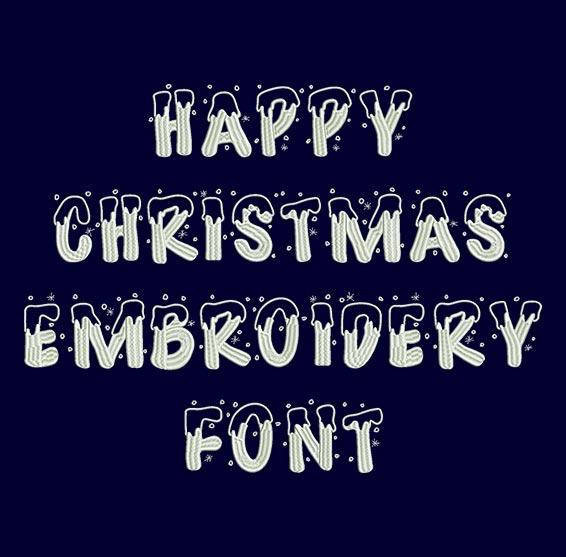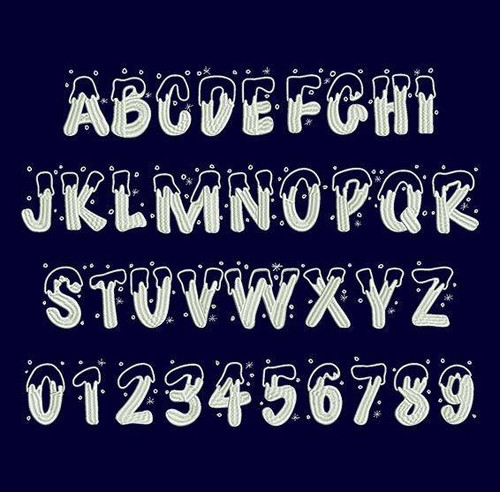
HAPPY CHRISTMAS MACHINE EMBROIDERY FONT
Title: Happy Christmas Machine Embroidery Font
This Happy Christmas font is perfect for personalizing clothes, bags, towels and linens!